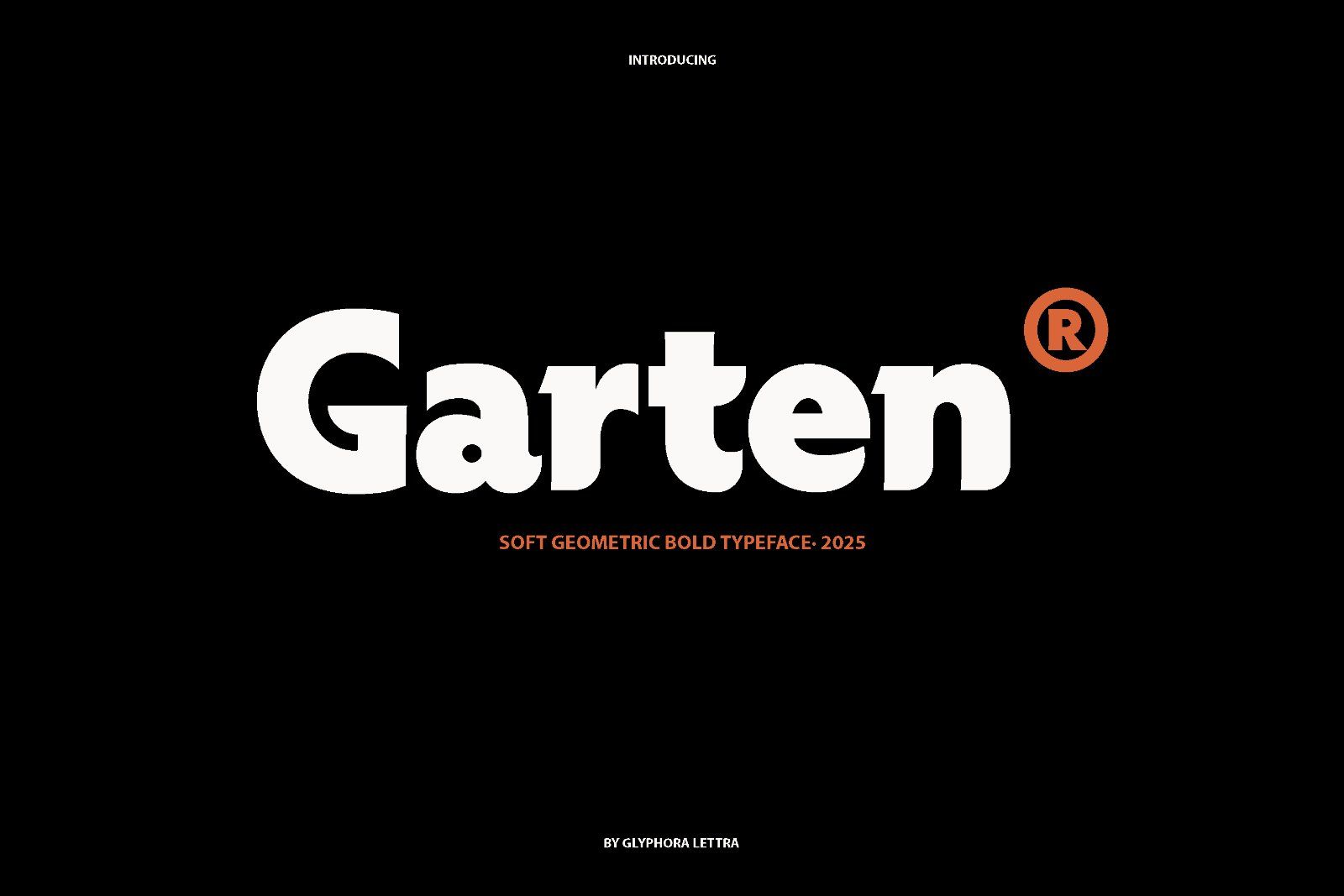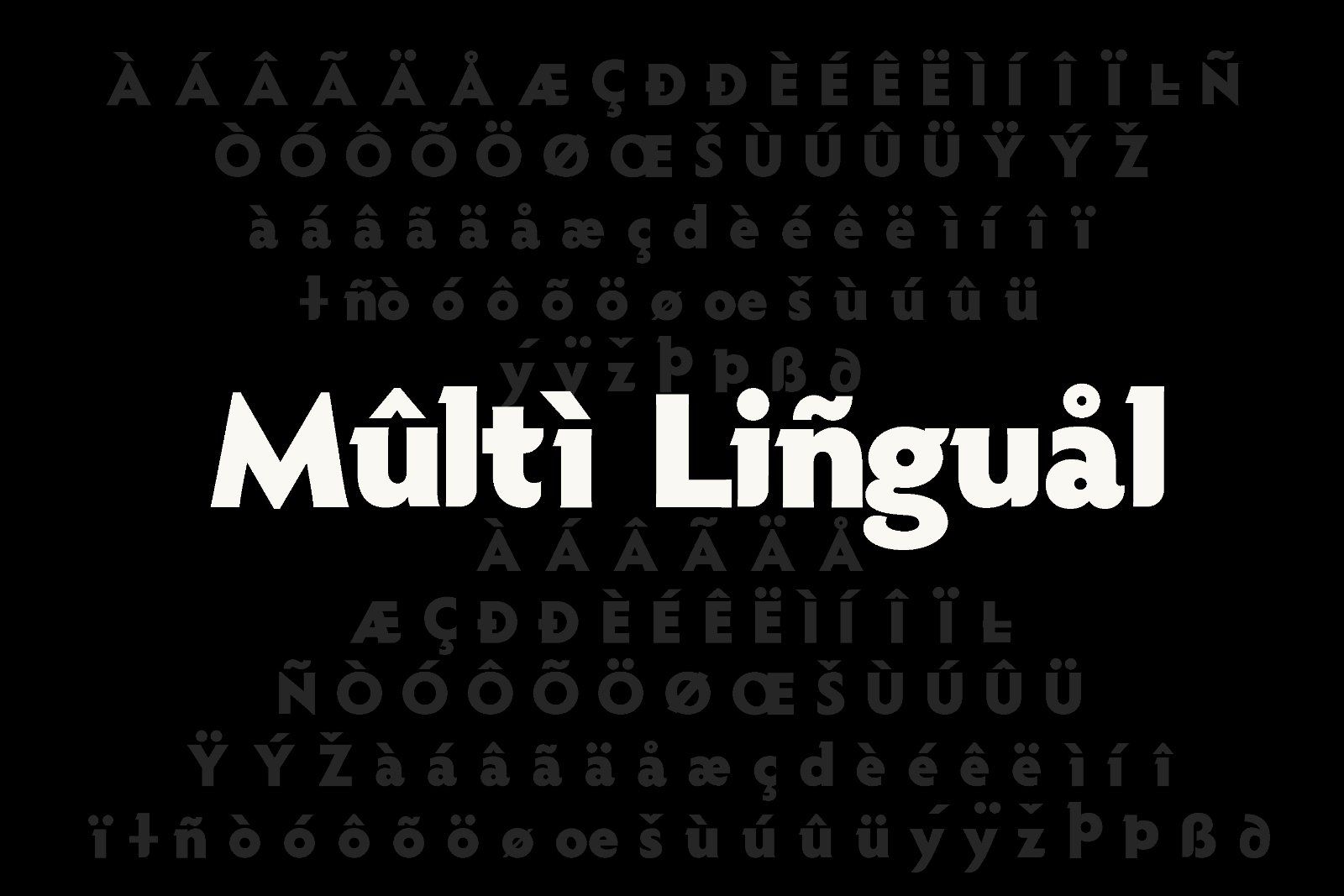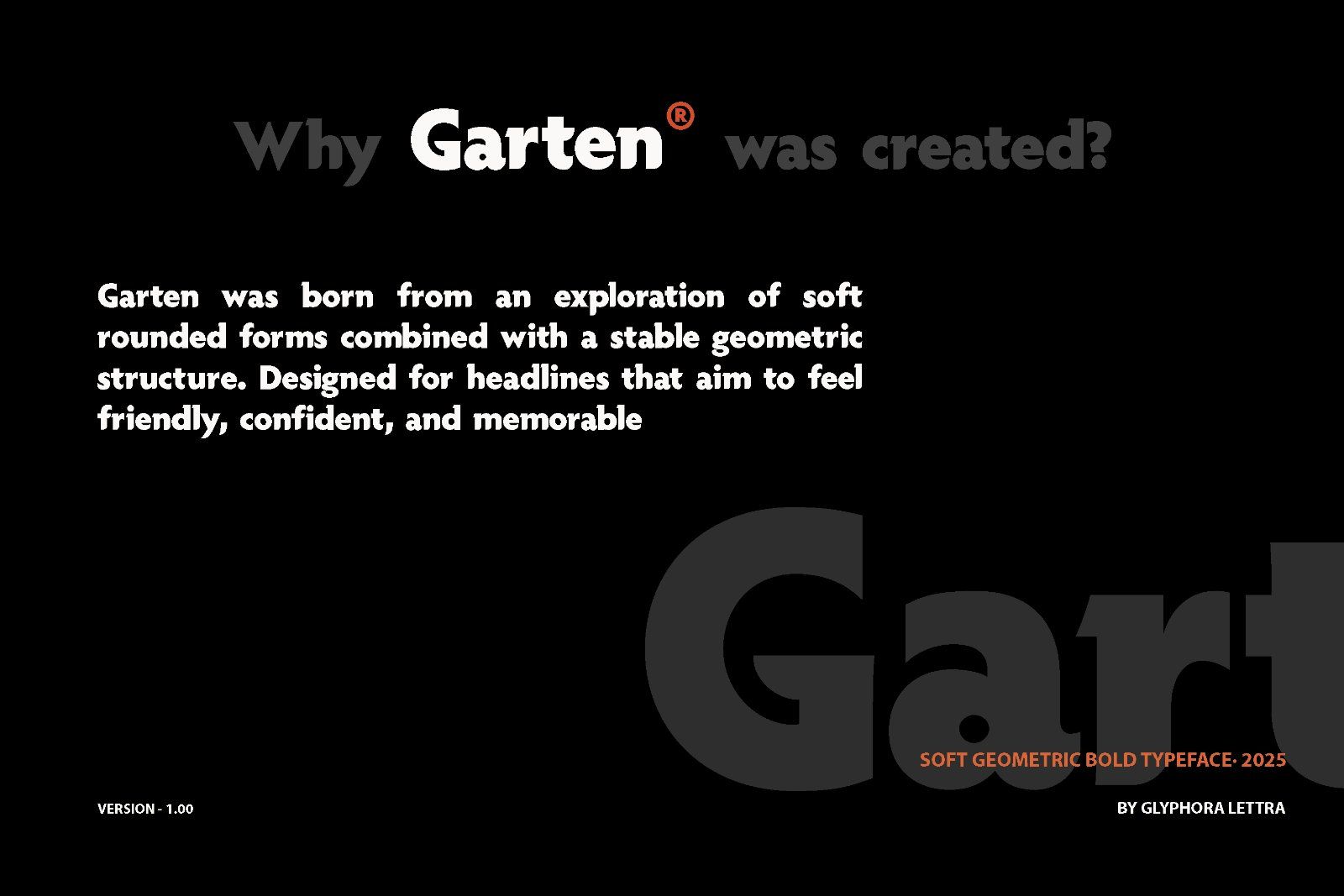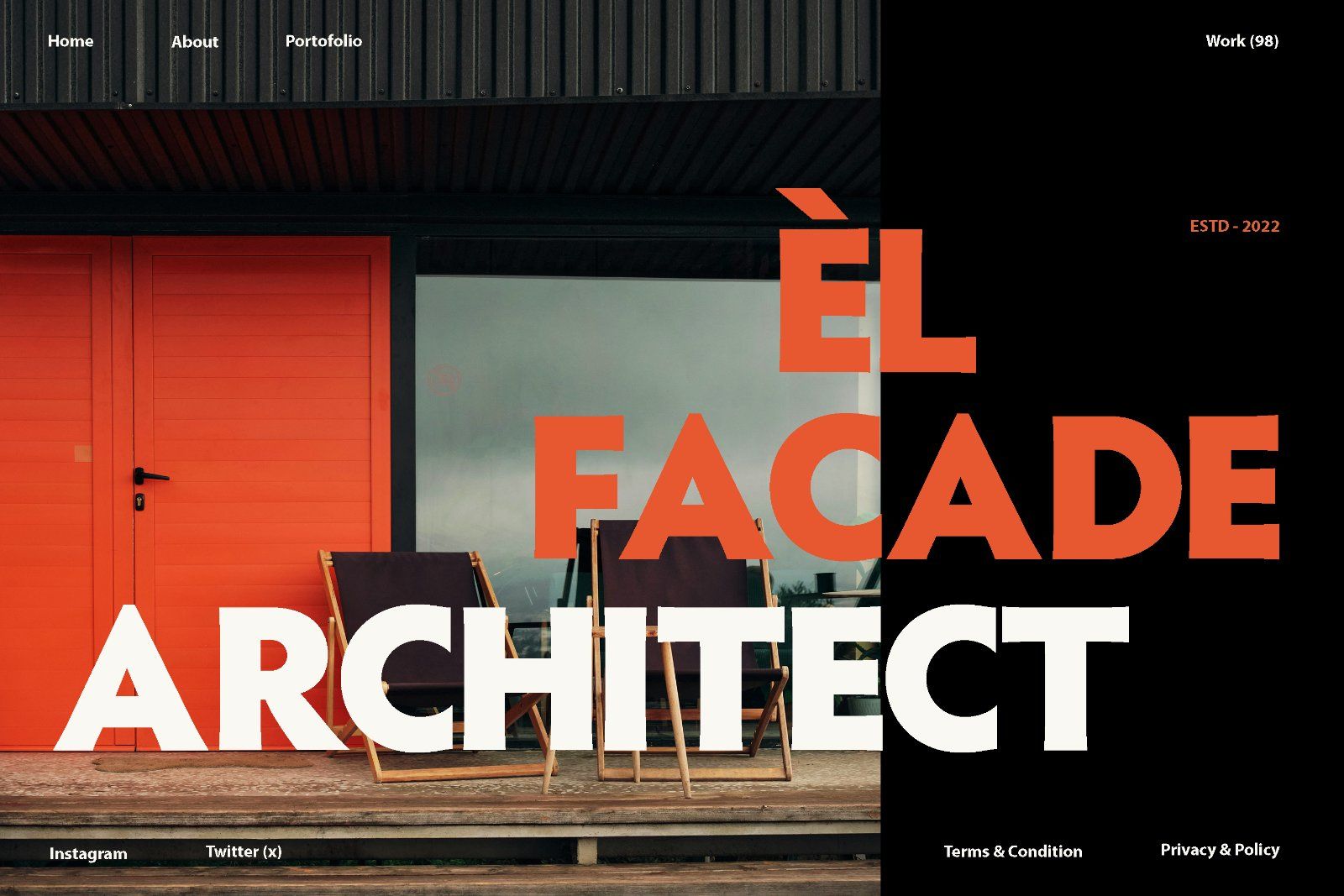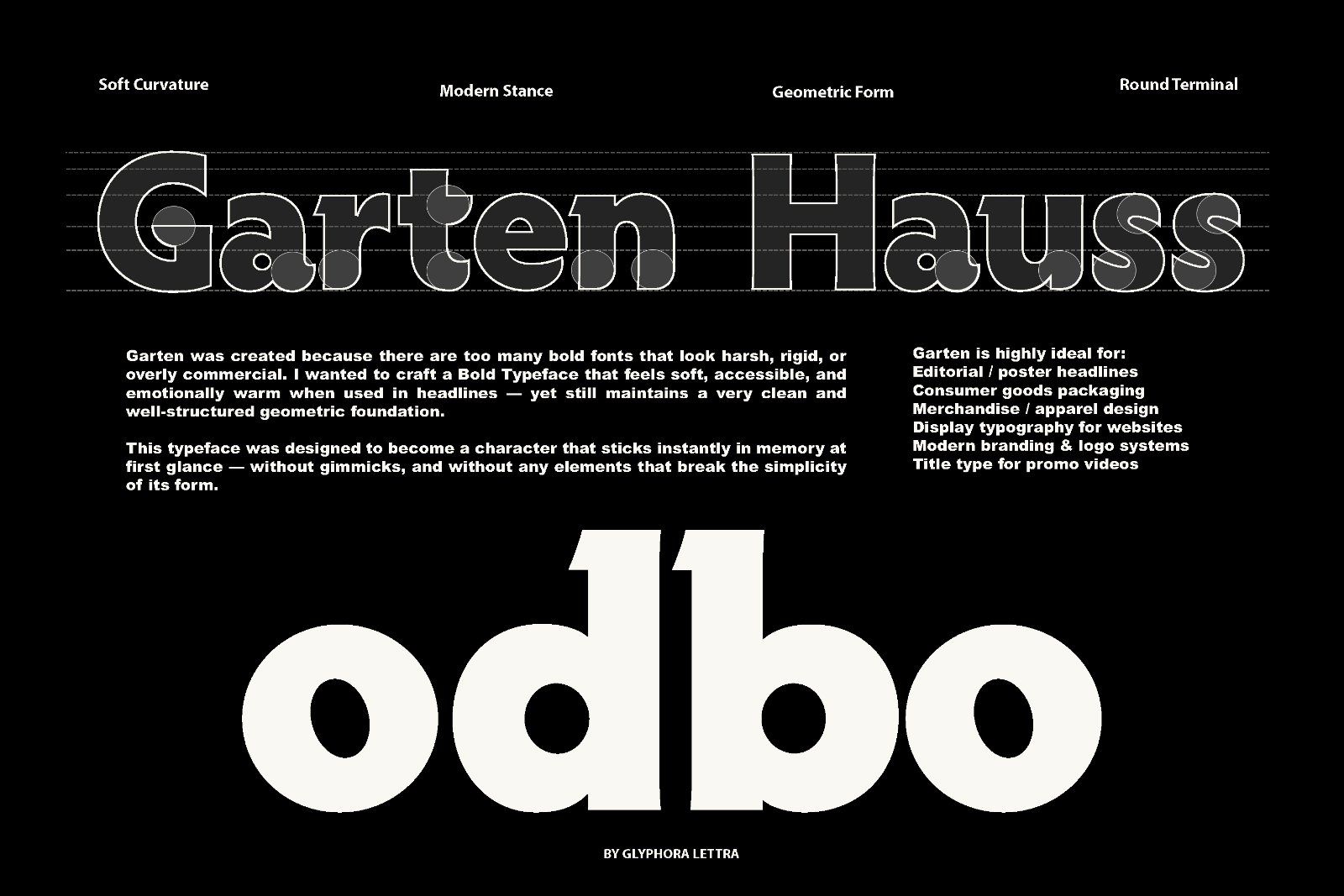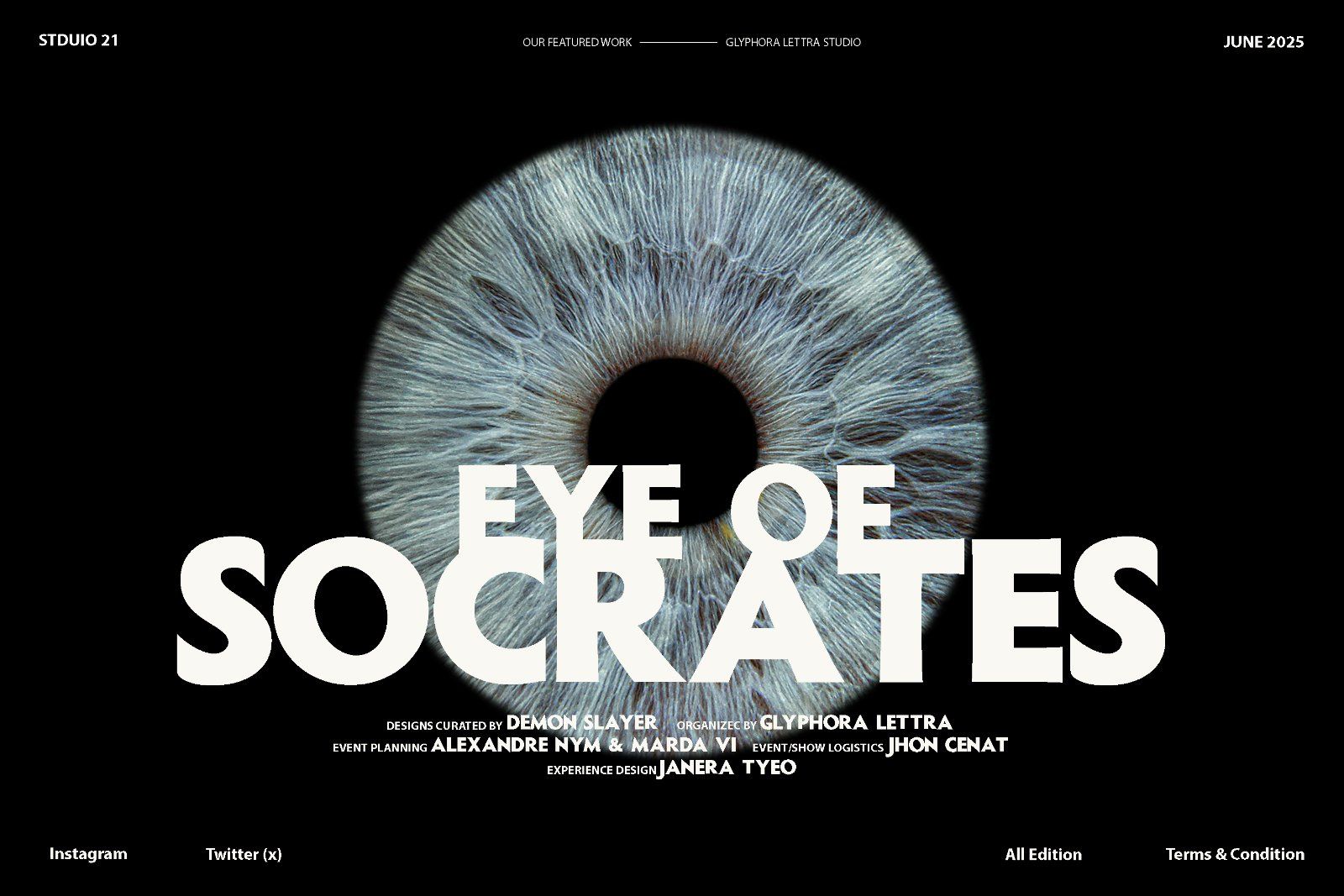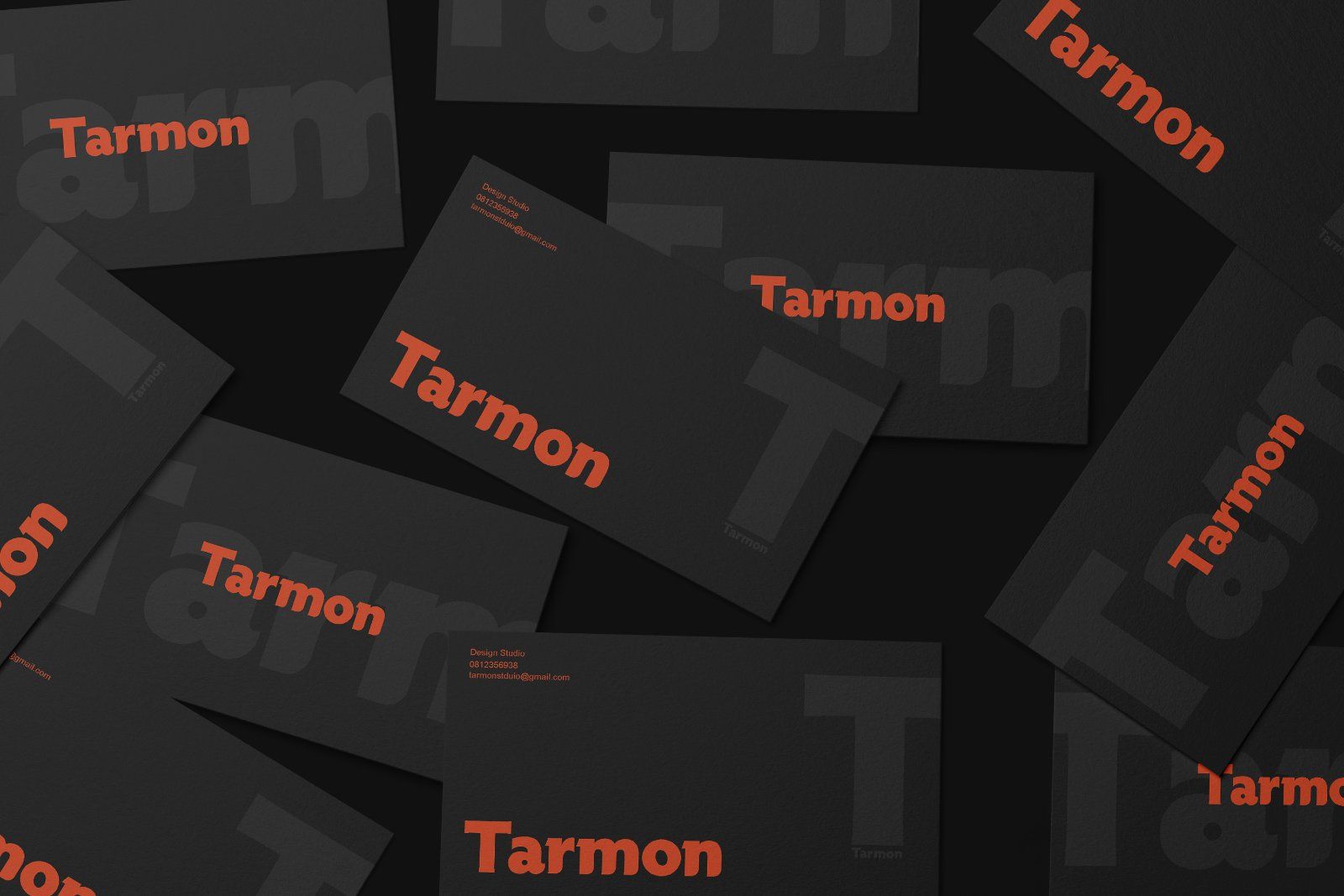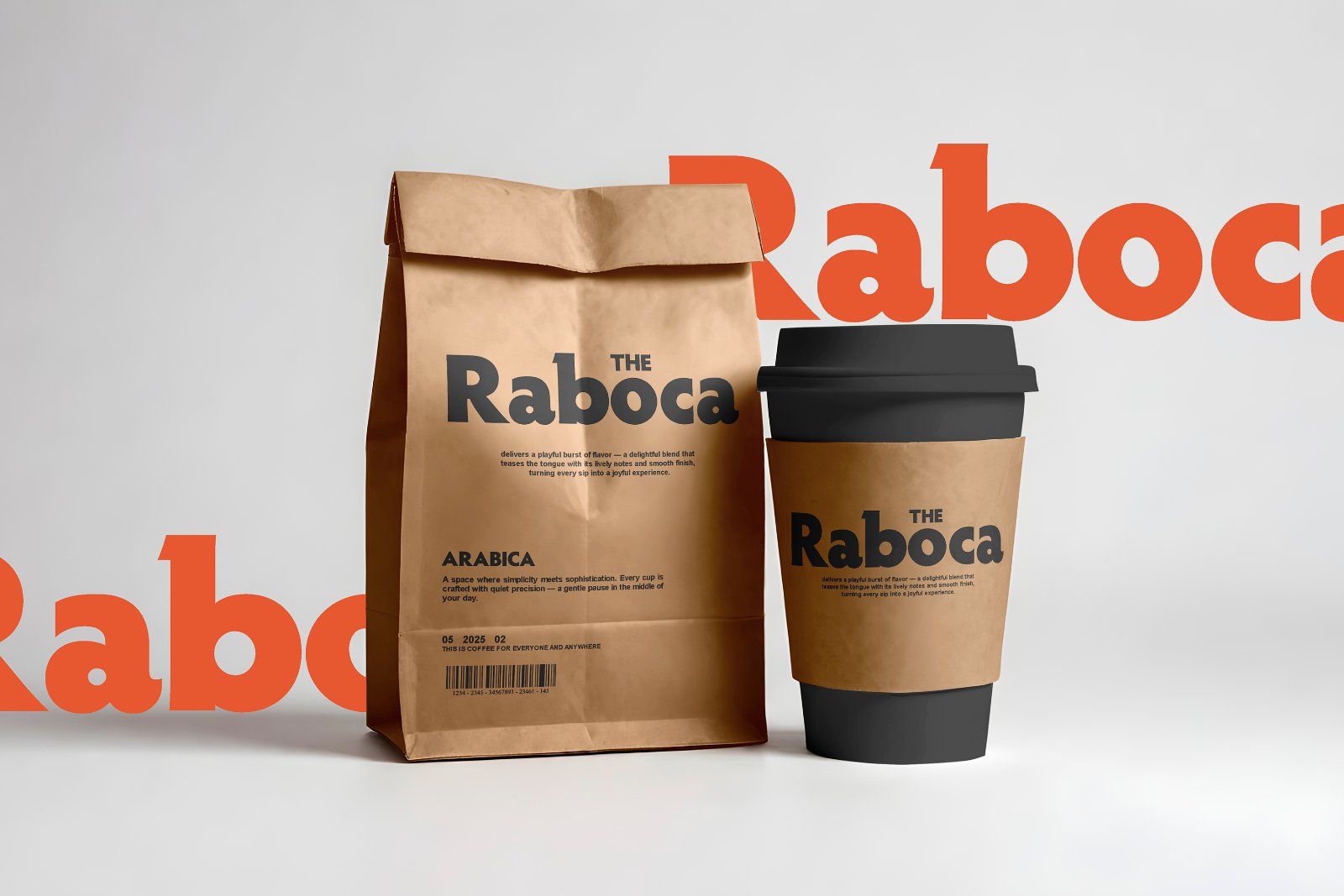
Garten was created because there are too many bold fonts that look harsh, rigid, or overly commercial. I wanted to craft a Bold Typeface that feels soft, accessible, and emotionally warm when used in headlines — yet still maintains a very clean and well-structured geometric foundation.
This typeface was designed to become a character that sticks instantly in memory at first glance — without gimmicks, and without any elements that break the simplicity of its form.
• Uppercase & lowercase letters
Perfect For:
• Logo & Branding
• Packaging Design
• Poster and Social Media Design
• Product and Merchandise Labels
• Editorial Design
• Typography Website